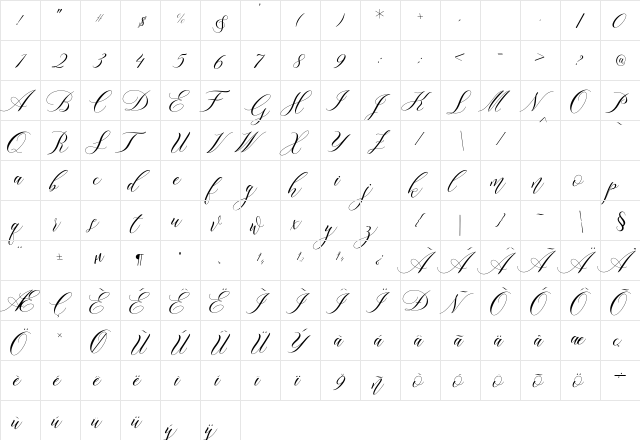
Lorriana script Regular
| Foundry | Molidi |
| Designer | molidi |
Design Context for Lorriana script Typeface
Lorriana script flows with the natural rhythm of handwritten lettering, making it ideal for designs that call for warmth and personal expression.